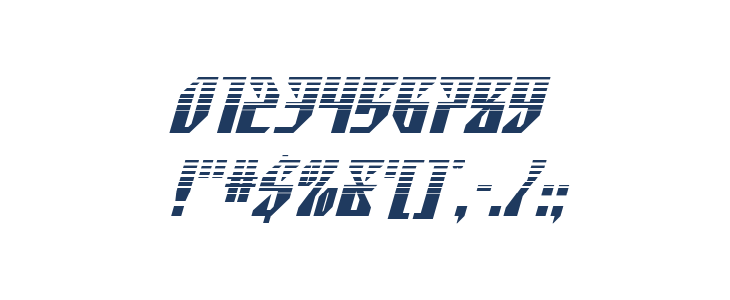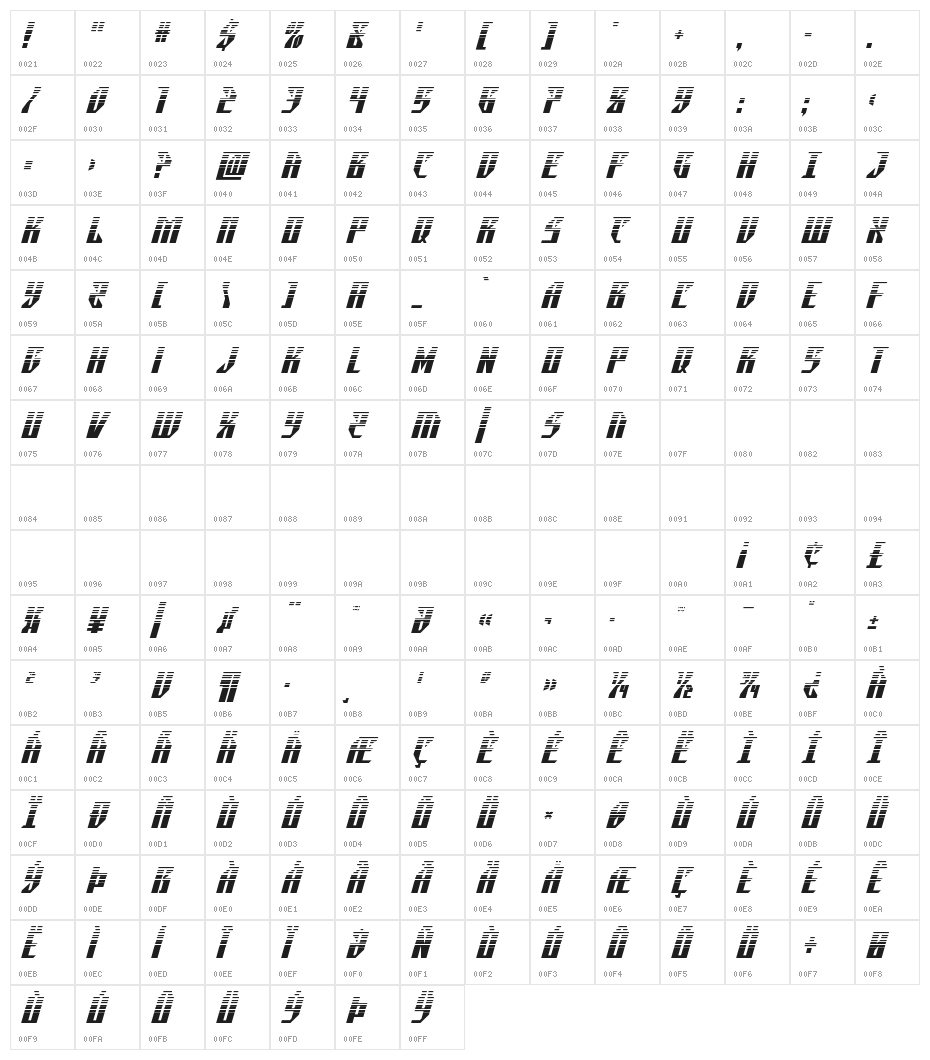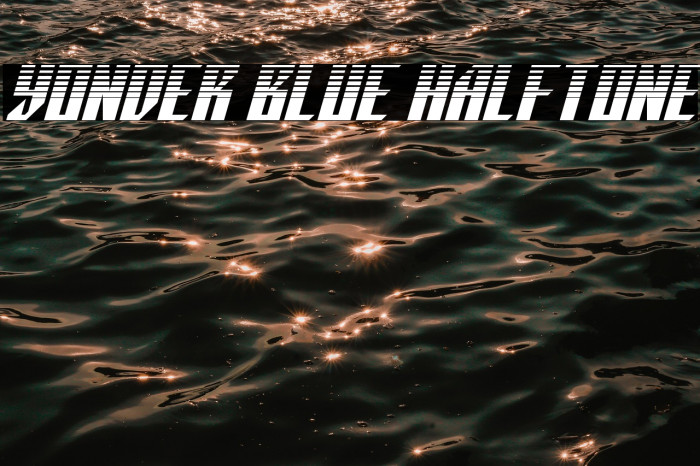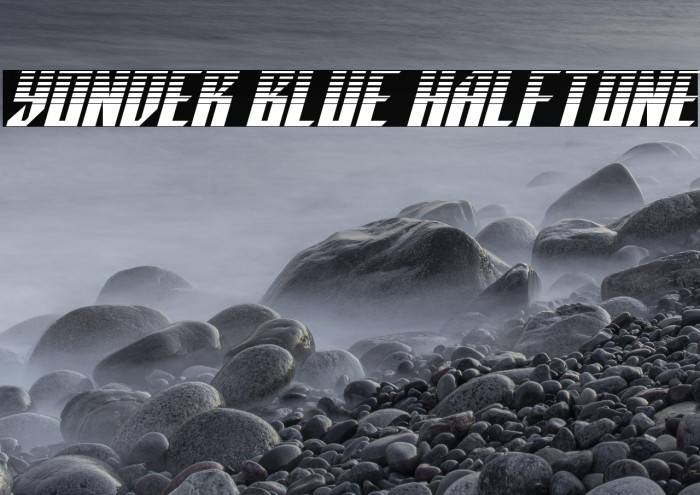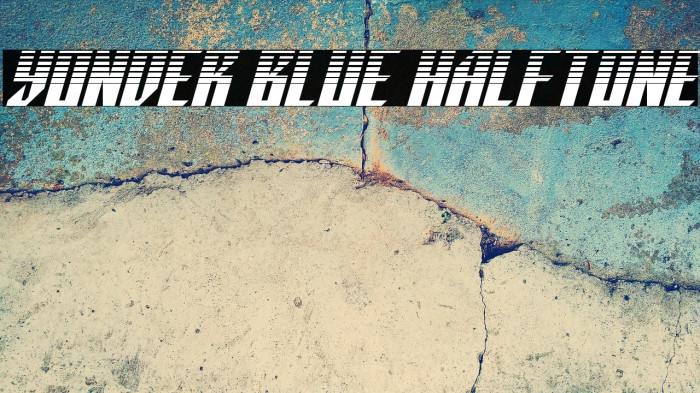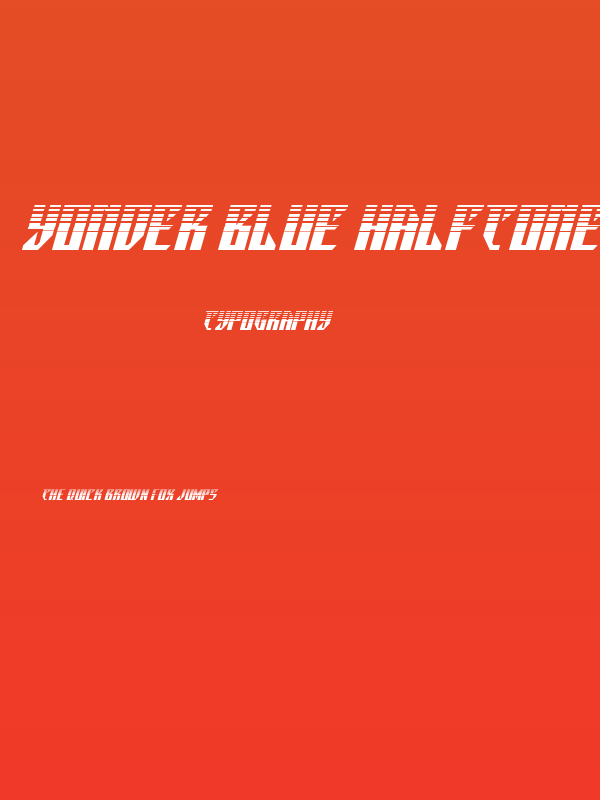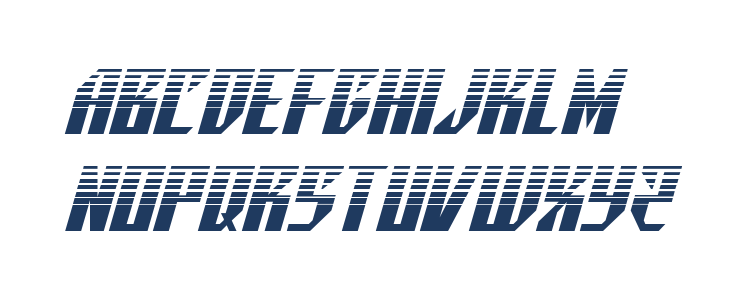
Yonder Blue Halftone Font
Yonder Blue Halftone Description
This font features a bold and dynamic design with a distinct halftone pattern that creates a sense of movement and energy. The uppercase and lowercase letters are constructed with sharp angles and a slanted orientation, giving them a futuristic and edgy appearance. The numbers and special characters follow the same stylistic approach, ensuring consistency across all glyphs. The use of horizontal lines within each character adds a unique texture, enhancing the visual impact and making it ideal for attention-grabbing designs.